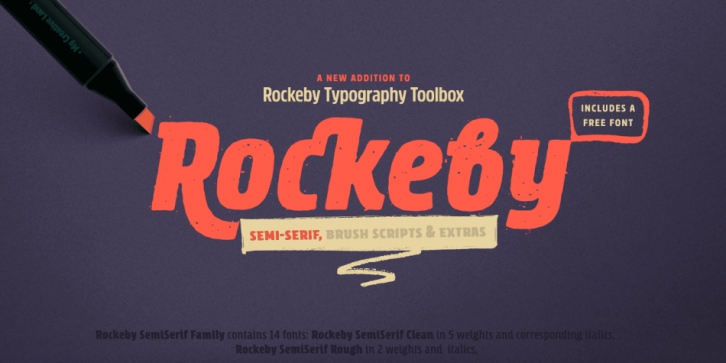
Rockeby SemiSerif Font Download
Designed by Elena Genova, Rockeby SemiSerif is a sans serif and display sans font family. This typeface has fourteen styles and was published by My Creative Land.
Rockeby SemiSerif is a font family that joins a well known collection - Rockeby Typography Toolbox.
With 14 fonts included, it can be used for any sort of design project including but not limited to branding, websites, brochures, greeting cards etc. Rockeby SemiSerif Rough has a unique feature - the grunge texture that is applied not only to the letters but to the surrounding space as well.
You can successfully mix and match all 50 fonts within Rockeby Typography Toolbox to get your design a stylish look.